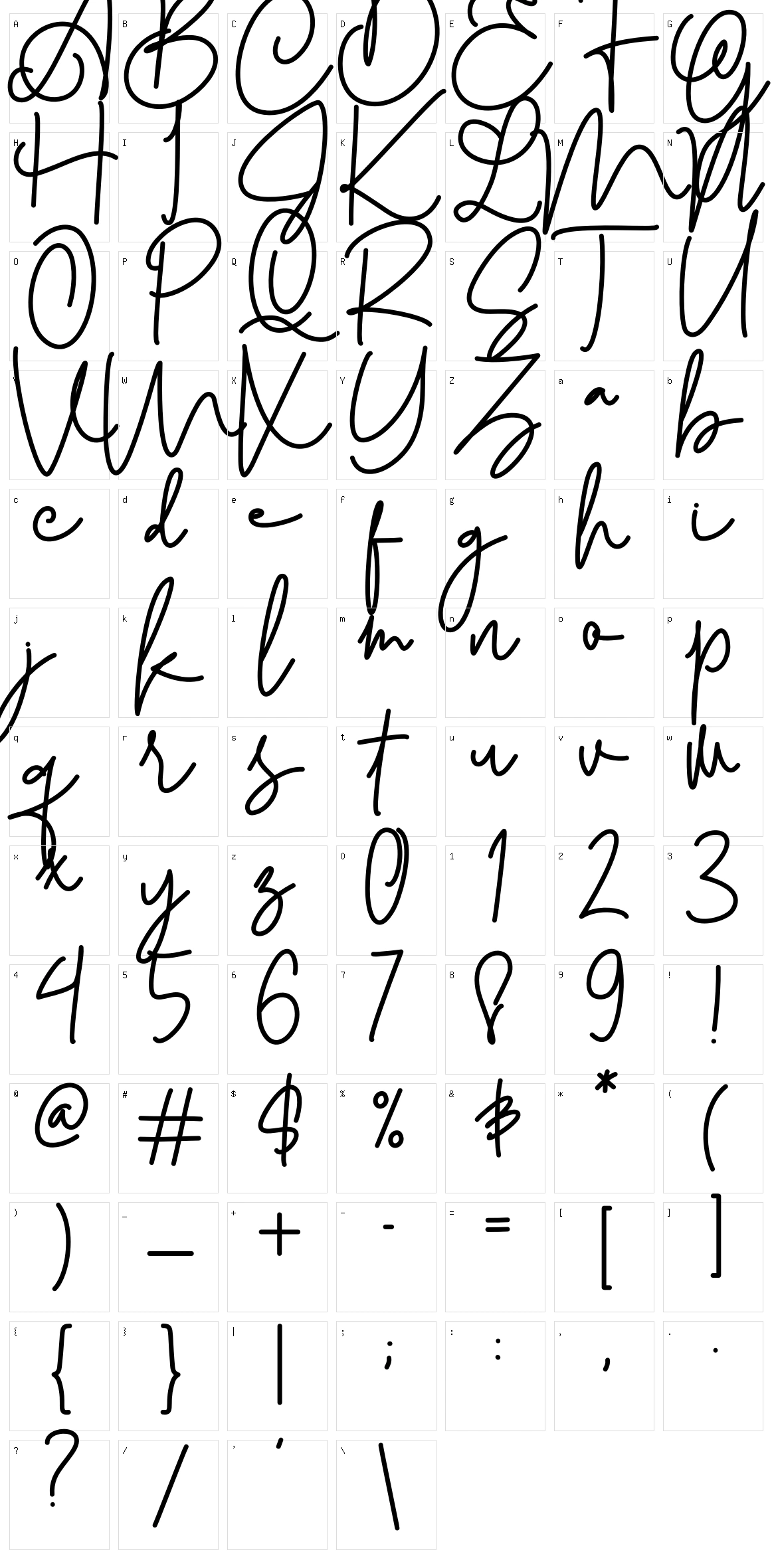
The free font Happyland is carefully designed by Fontruly, showcasing a thoughtful balance of creativity and usability and falls under the Script font style. When you download the ZIP file, it contains only 266.12 KB of font files, making it lightweight and quick to download. Please review the license details below to understand permitted usage and distribution rights. If license information is not available, we recommend using this font for personal projects only or contacting the author directly for commercial usage permissions.